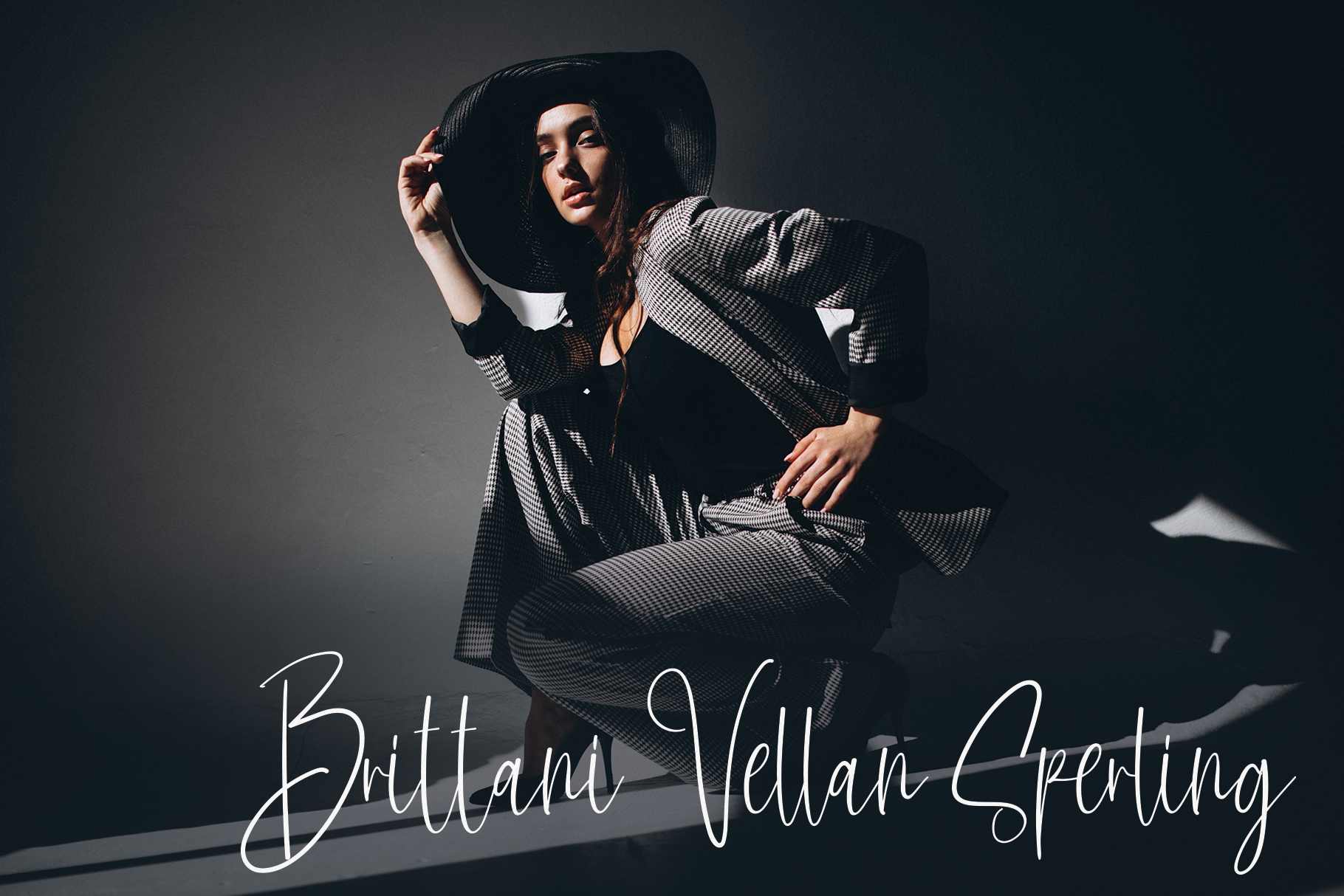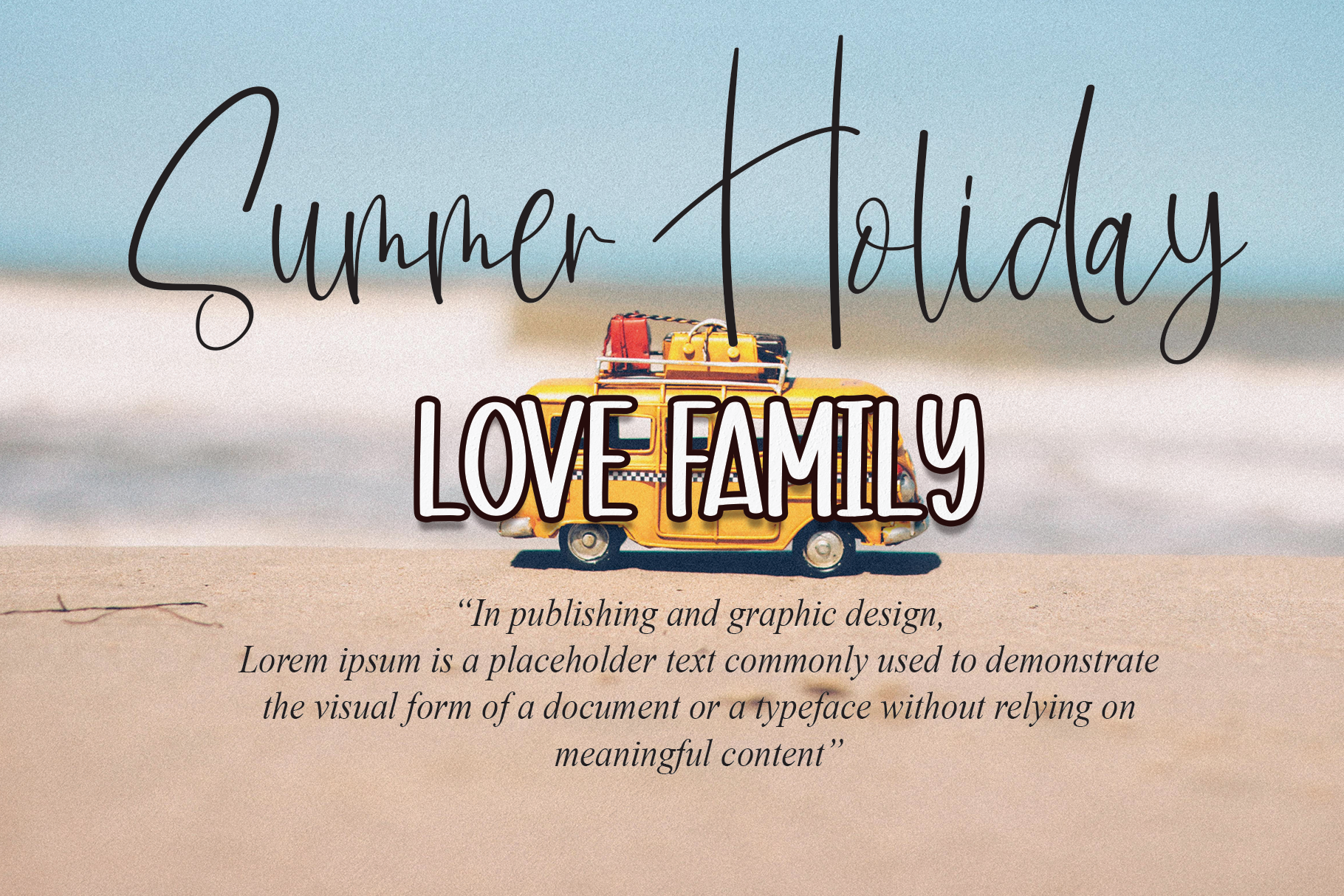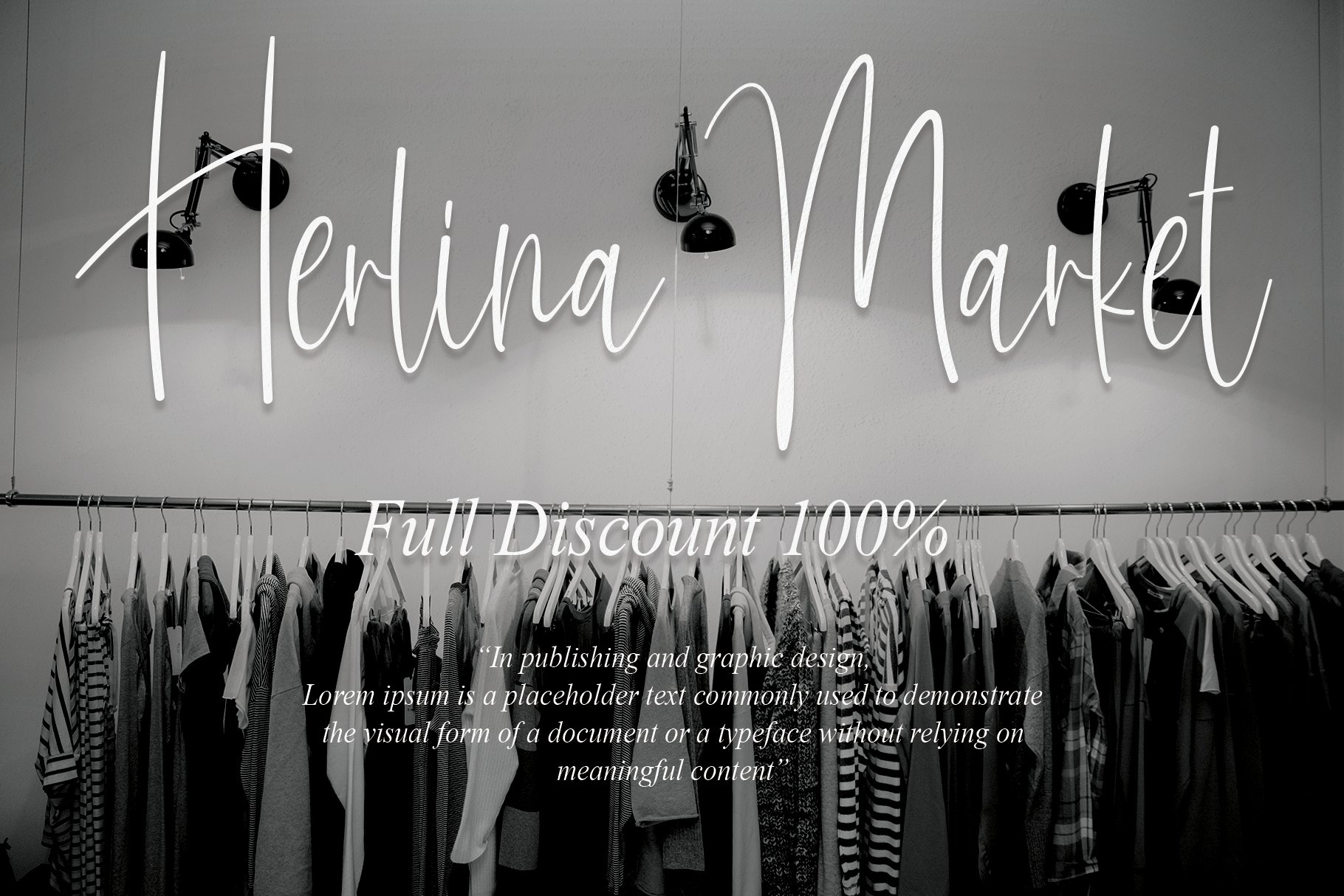
Jupiter Signature Font
Jupiter Signature Script Font
This is a lovely and timeless handwritten font. It is the best choice for creating eye catching logos, branding and quotes. Every letter has a unique and beautiful touch, which will make your design come alive!
the latest style letters are perfect for wall displays, wedding invitations, social media post logos, advertisements, product packaging, product designs, labels, photography, watermarks, invitations, stationery, and any project that requires taste handwriting.